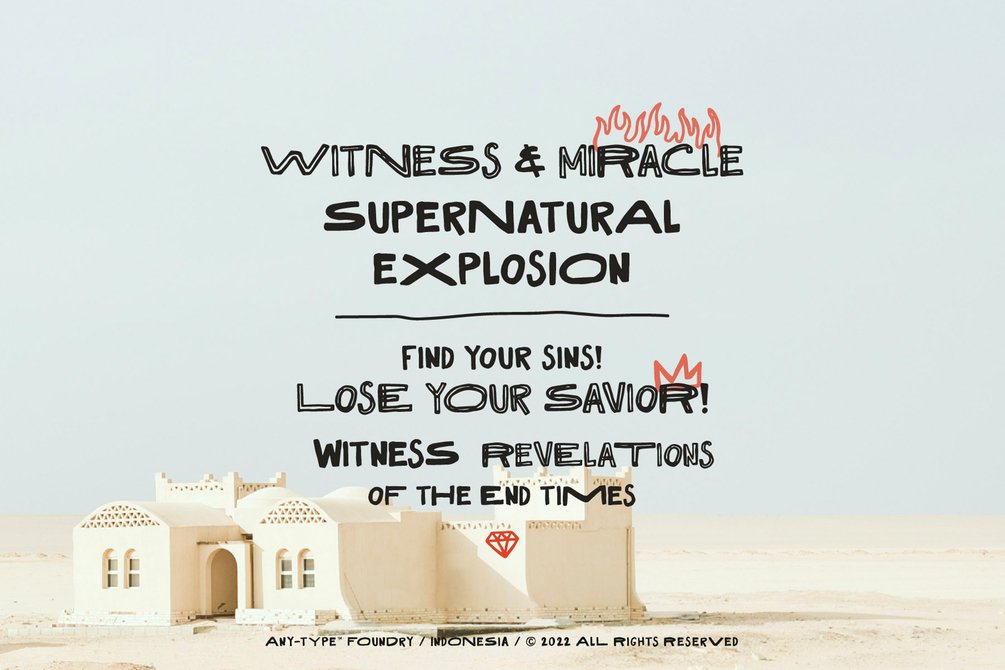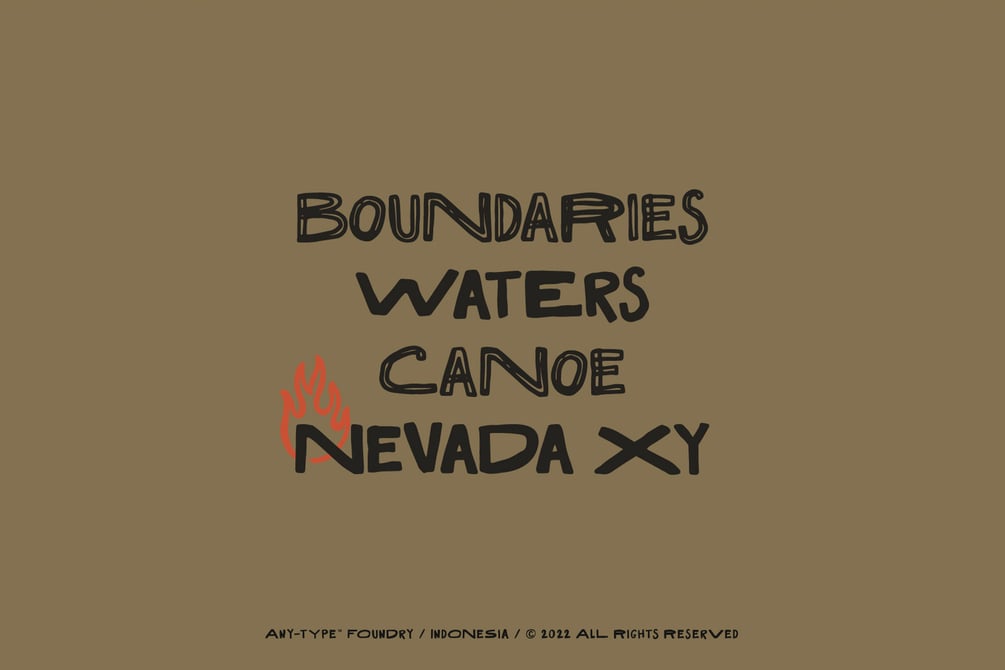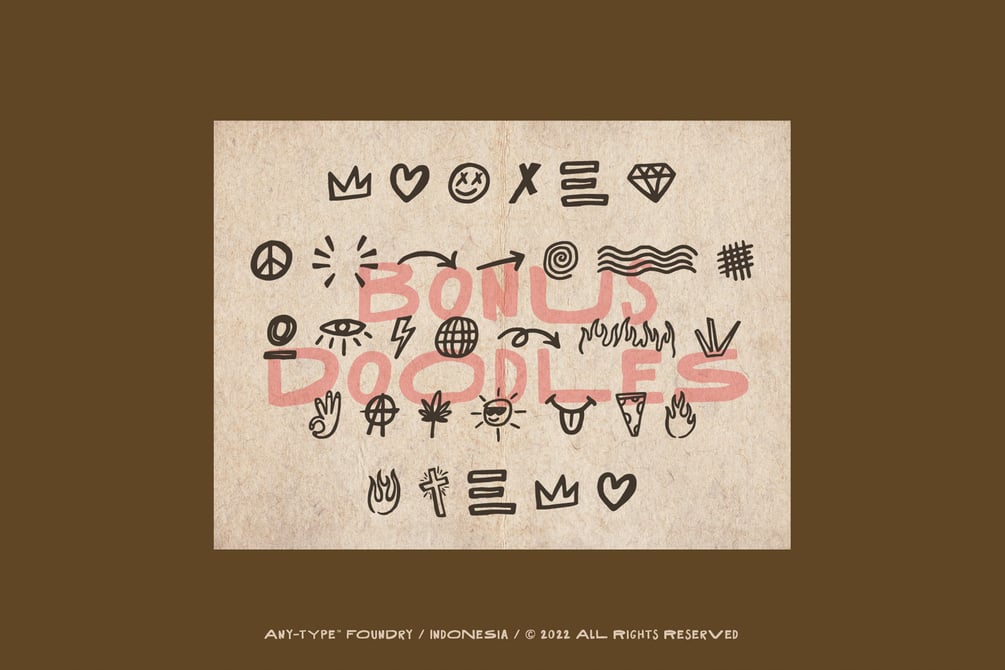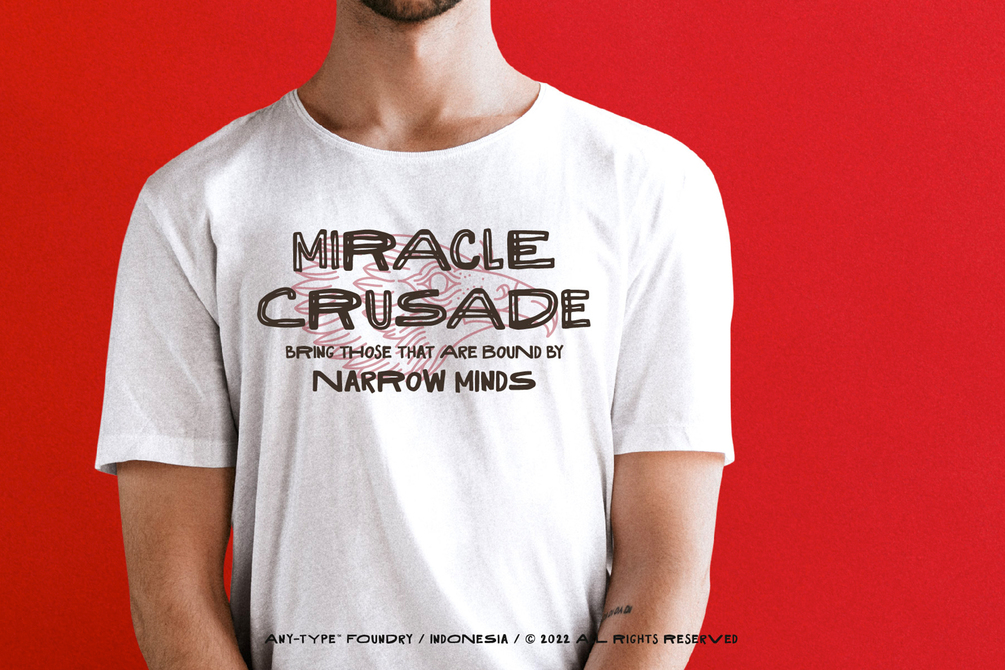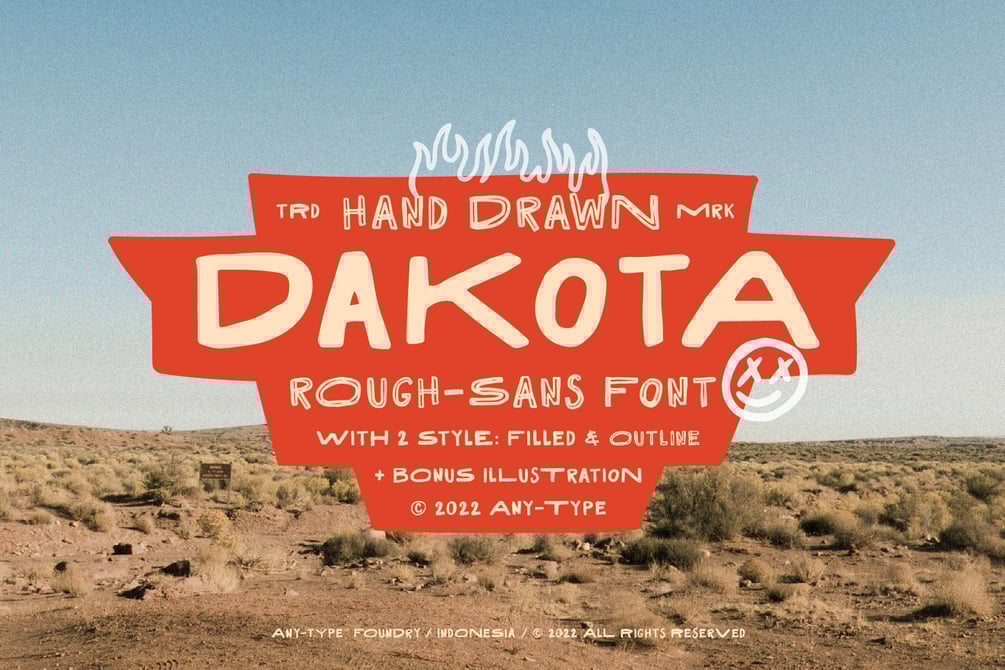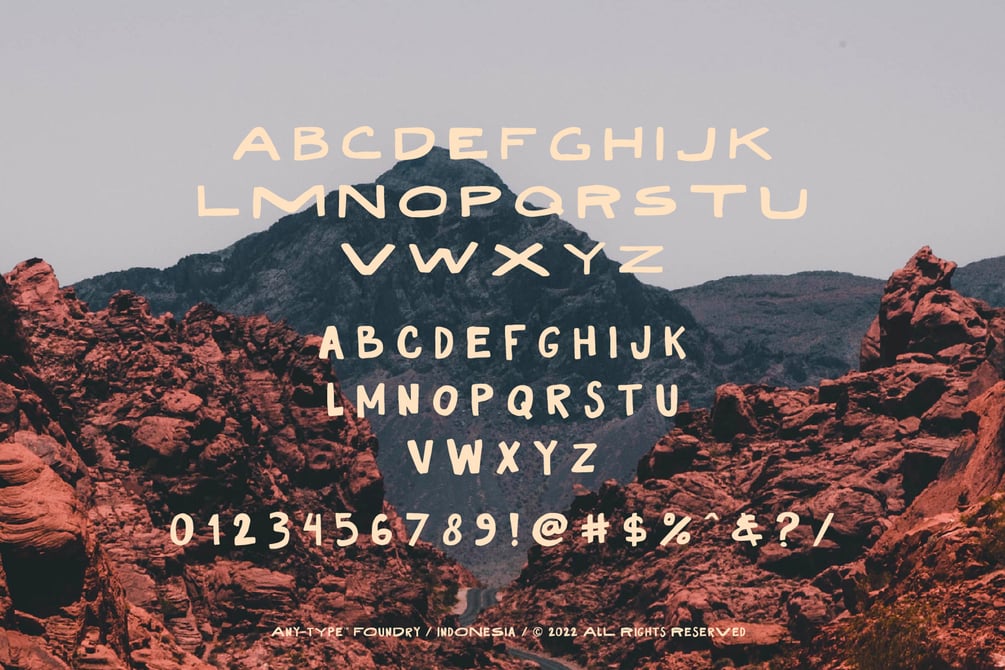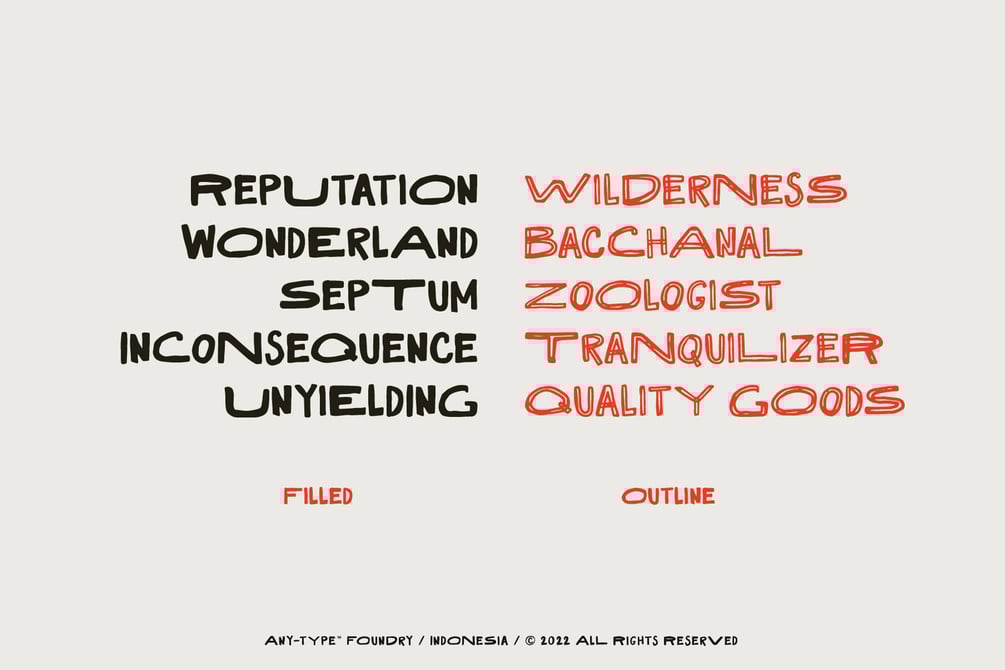
Dakota Rough Sans + Bonus
DAKOTA SANS ROUGH FONT
Dakota is handmade vintage sans fonts. Inspired by classic western culture, custom culture motorcycle and combining with vintage touch. There’s 2 font style that would be perfect to combine in your design, especially on vintage design, poster and many more. This fonts comes with 2 style (Filled & Outline) with opentype and truetype features also webfont format also comes with bonus doodle inside this package.